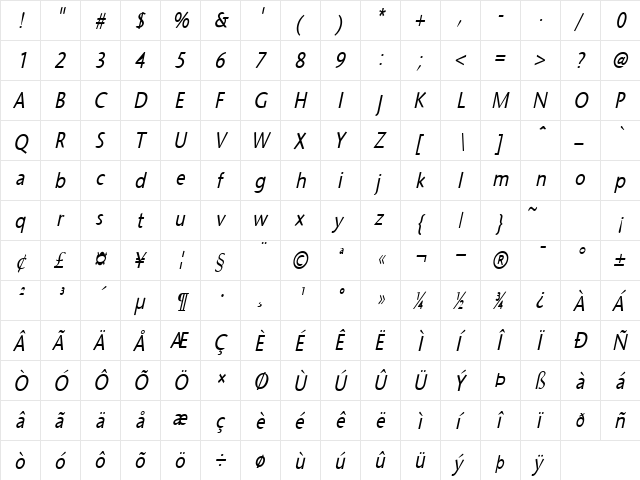
Optimist-Condensed Italic
Design Context for Optimist-Condensed Typeface
Optimist-Condensed is a composed and adaptable typeface that performs quietly and consistently across a wide range of design contexts. The dynamic lean of this cut emphasises speed and emphasis in any layout. Its narrow stance lets it pack a punch even in space-constrained designs.
Pro Tip: Use Optimist-Condensed for emphasis, pull quotes, and subheadings where its slanted energy can add rhythm to the layout.